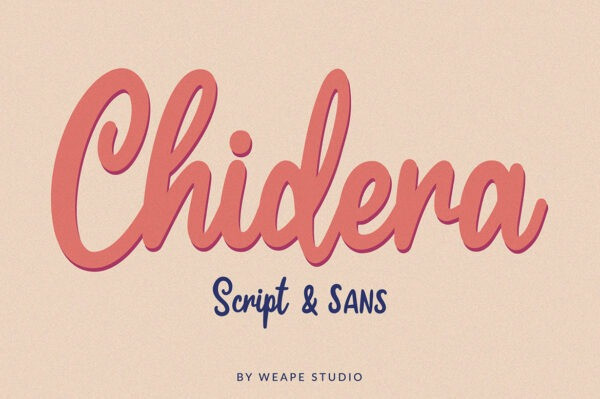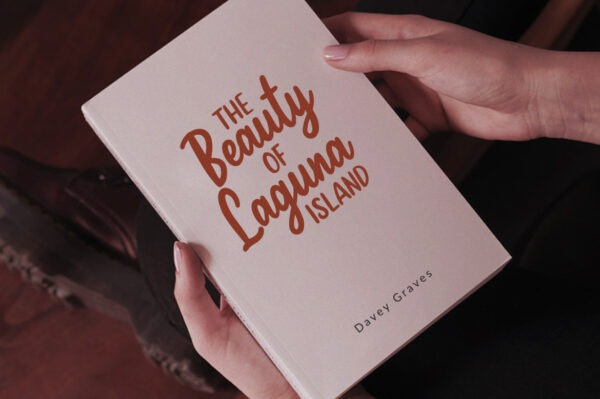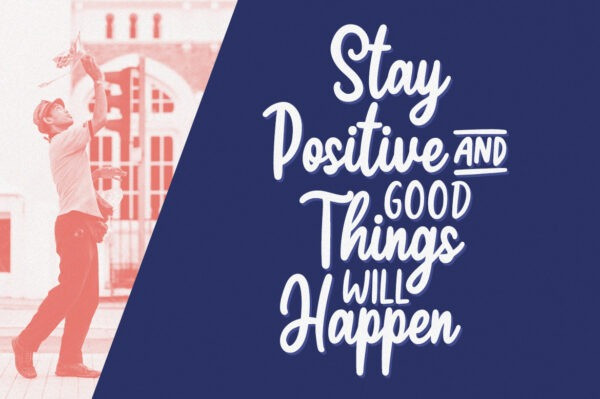
Chidera Handwritten Font
Introducing Chidera Script & Sans, font duo with natural handwritten style and the stroke of hand quickly.
Chidera is perfect for signature, branding, logo, wedding, fashion, photography title, poster, social media, ad banner, book cover, packaging, handwritten quotes, greeting cards, and advertising.
All fonts containing upper & lowercase characters, numerals, punctuation and multilingual support.